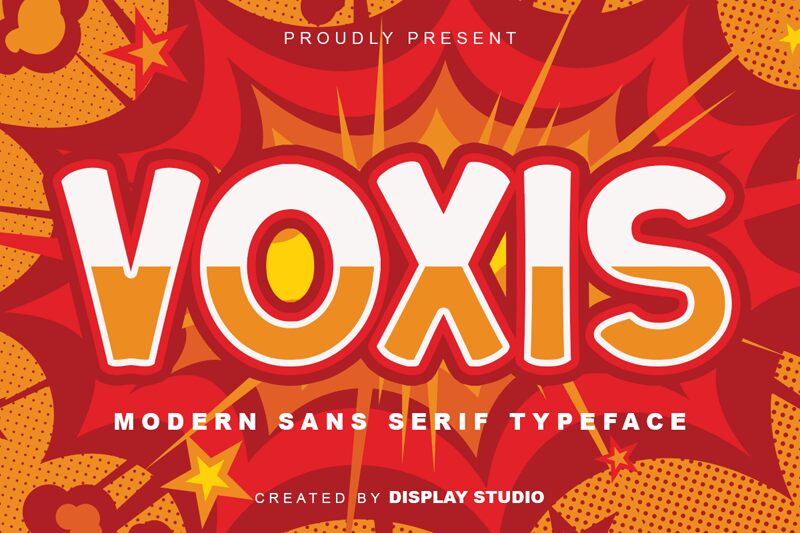
VOXIS
Introducing VOXIS - a bold display font designed by Display Studio. Perfect for creating a statement, this versatile font is ideal for headlines, logos, posters, and other large-scale projects. Add impact to your designs with VOXIS' unique look!